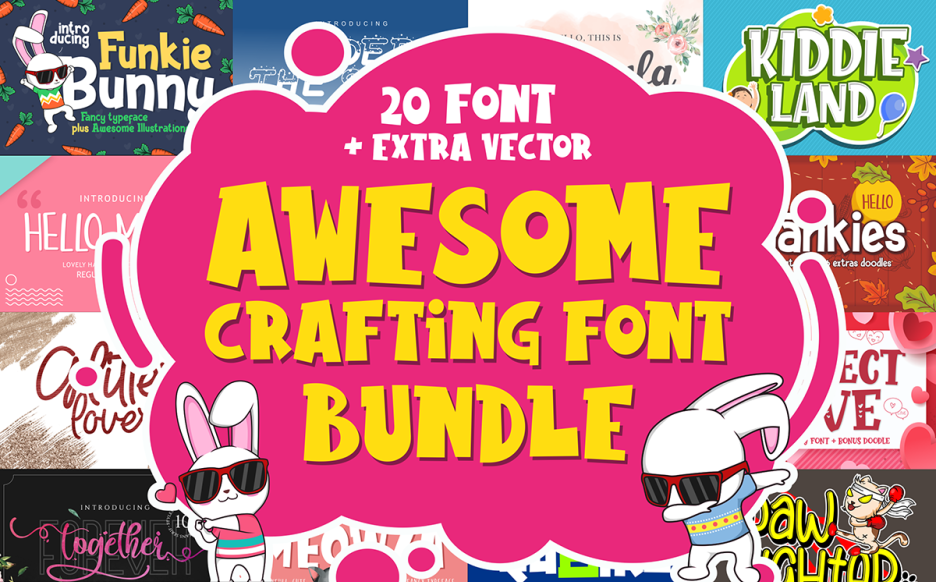
Awesome Crafting Font Bundle
Elevate your design projects with the Awesome Crafting Font Bundle, a carefully curated collection of unique and versatile fonts. This bundle includes a variety of styles, from playful scripts to bold display fonts, perfect for any crafting or branding project.
• Multiple font styles: script, sans-serif, serif, and display
• Various weights to suit different design needs
• Easy to read and visually appealing
Ideal for branding, logos, web design, print materials, and crafting projects. Combine different styles from the bundle to create stunning visuals that stand out.